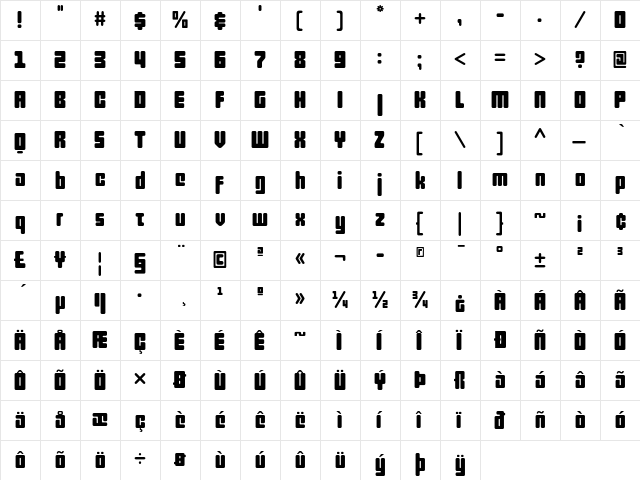
Labyrinthe AGI Melaina
Design Context for Labyrinthe AGI Typeface
Labyrinthe AGI is a composed and adaptable typeface that performs quietly and consistently across a wide range of design contexts.